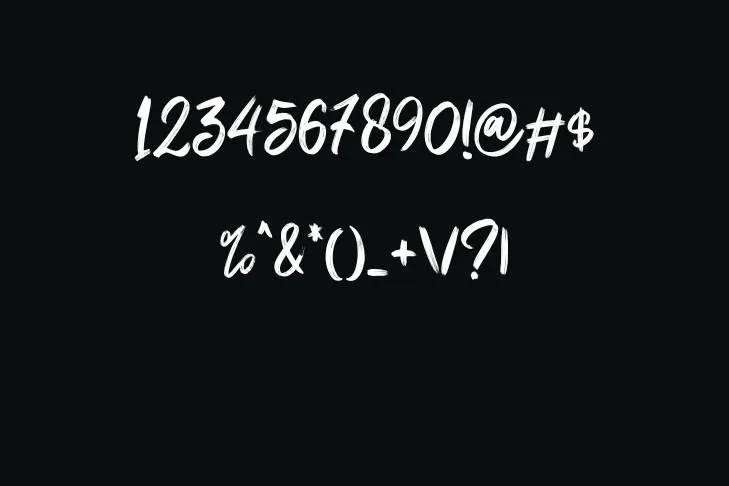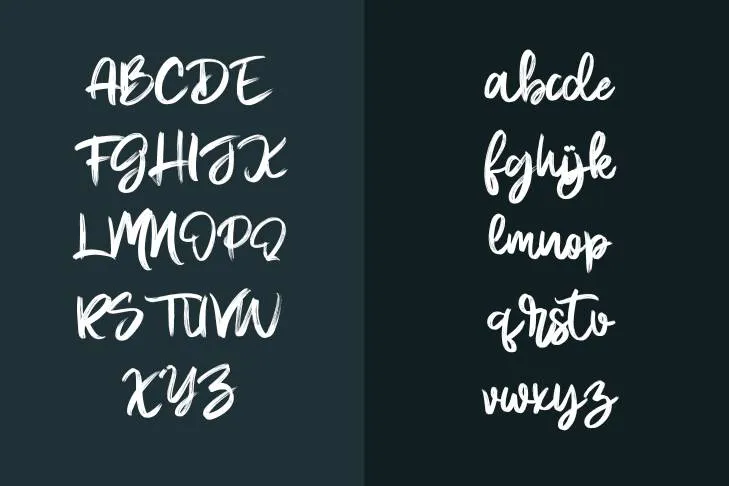
Presenting an interesting and highly appreciated typeface known as Bobby Anderson font. It belongs to the contemporary Script font family and it was fabulously designed by Tugcu Design and Co. Its fantastic appeal adds a feel of luxury and sophistication to the projects.
The Bobby Anderson font was crafted by Tugcu Designs in 2019 and is named after its co-founder, Bobby Anderson. It combines both traditional and futuristic elements to create a unique and classical style of lettering.
More Ways to Use Bobby Anderson Font
It has a beautiful and stunning style of lettering so it is quite famous among graphic designers, bloggers, and creative professionals around the globe. It is a perfect option to create numerous design patterns including, logos, social media posts, interfaces for gaming websites, and much more.
In addition to these, it can also be employed to create product descriptions, packing for various goods, labeling on products, or for various editorial purposes. Its classy and delicate style of lettering is fantastic to etch lettering on high-quality fashion products or to use it for interior designing materials. The typeface family is highly versatile and accommodating of numerous foreign languages, making it an ideal choice for pairing with decorative fonts like foxus font.
Characters and Glyphs
It has several beautiful and subtle aesthetics which makes it more elegant. It features a complete set of both upper and lowercase letters, numerals, punctuations, and a few symbols. It also includes several glyphs, alternates, and swashes that give designers more options to create eye-catchy designs.
Multi-Language Support
This exceptional typeface beholds extensive language support that comprises more than 30 languages which makes it easy to use in international design projects. These languages include French, Roman, German, Italian, Turkish, English, Spanish, Portuguese, Afrikaans, Albanian, and many more.
Pairing Fonts For Bobby Anderson Font
This exquisite font pairs well with several Sans-serif or Serif Display fonts. Some of the font pairing suggestions are listed below:
What is the type of Bobby Anderson texture?
It belongs to the contemporary Brush Script font family and it was fabulously designed by Tugcu Design and Co. Its fantastic appeal adds a feel of luxury and sophistication to the projects.
Can I use the Bobby Anderson font to design a gaming website?
It is a perfect option to create numerous design patterns including, logos, social media posts, interfaces for gaming websites, and much more.